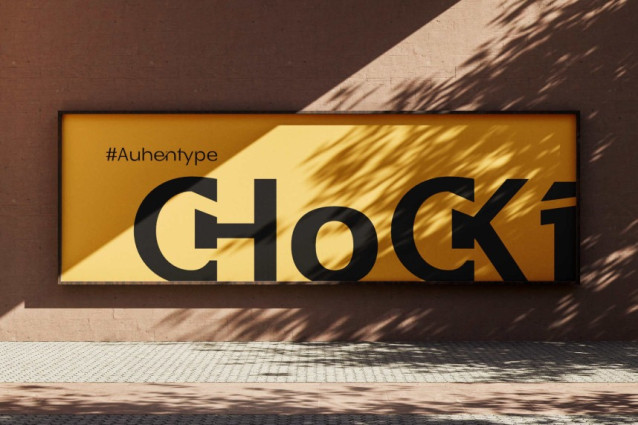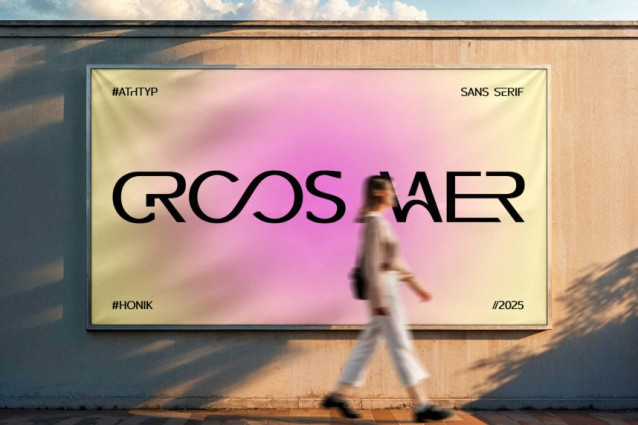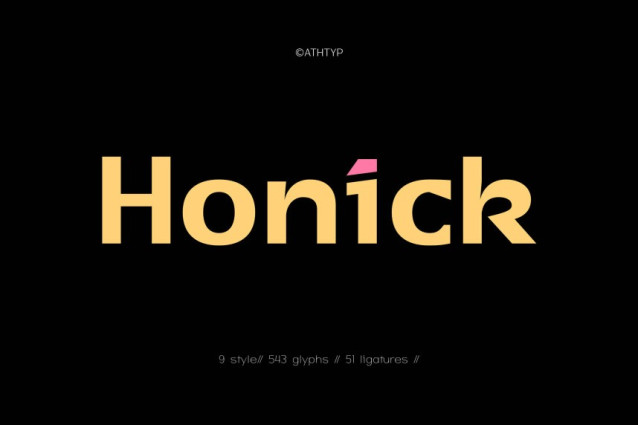
Honik Font
Honik Font is a clean and modern geometric sans serif font designed for designers, brands, and creatives who want to stand out with confident, contemporary typography. With 9 font weights from Thin to Black. Honík offers maximum versatility for any design project from minimalist logos to bold editorial headlines.